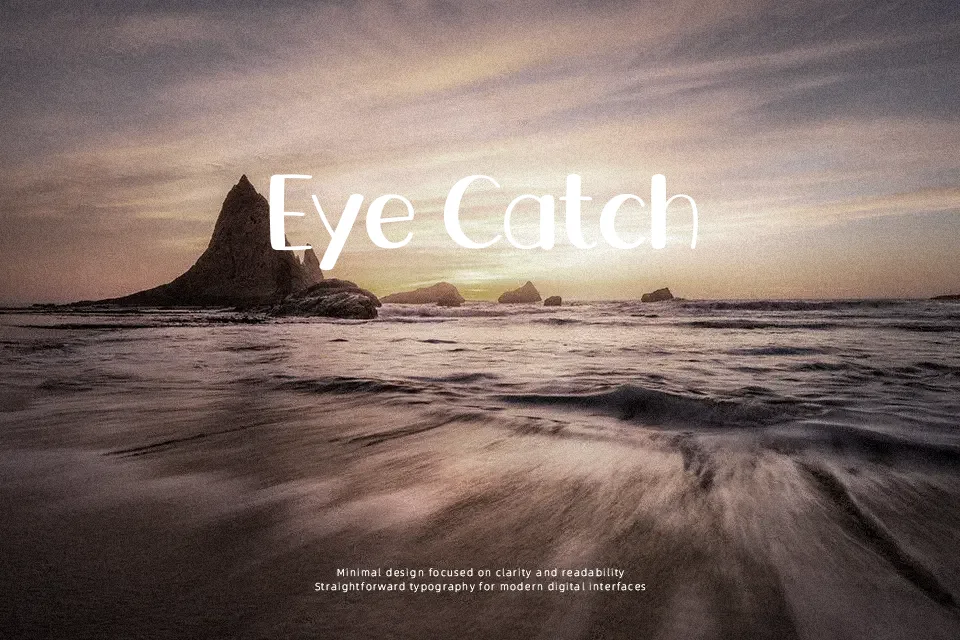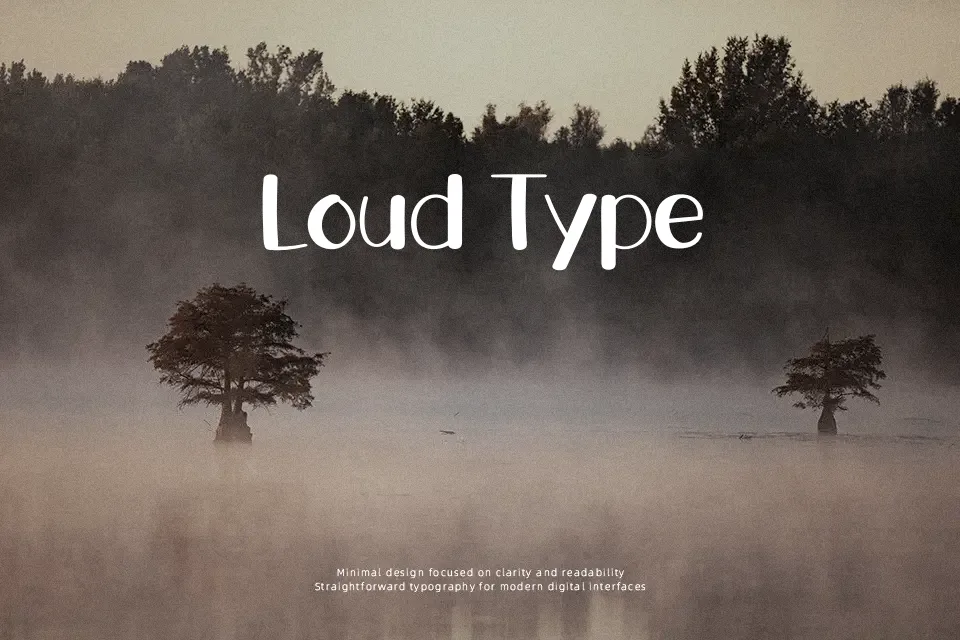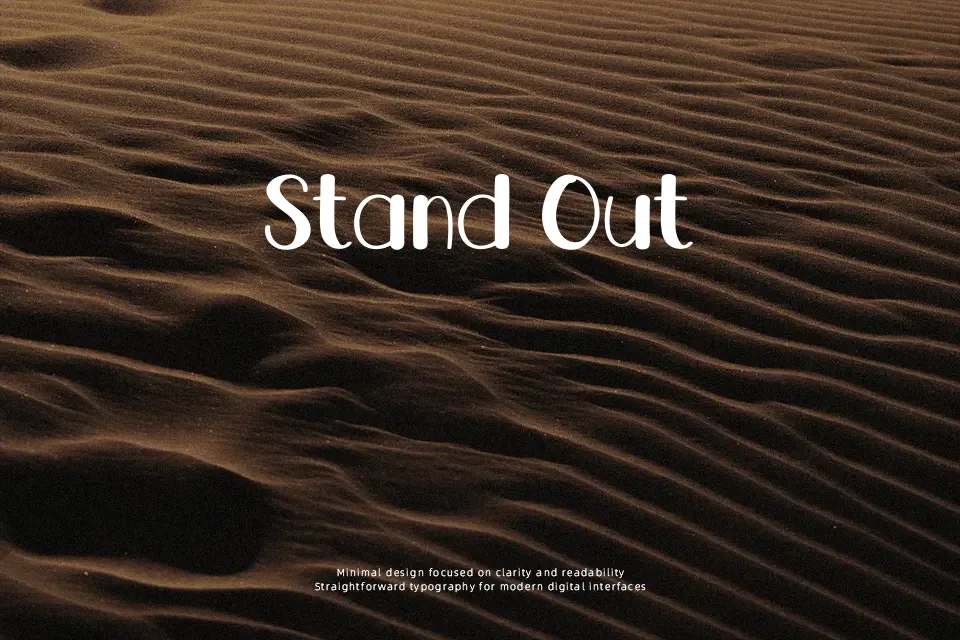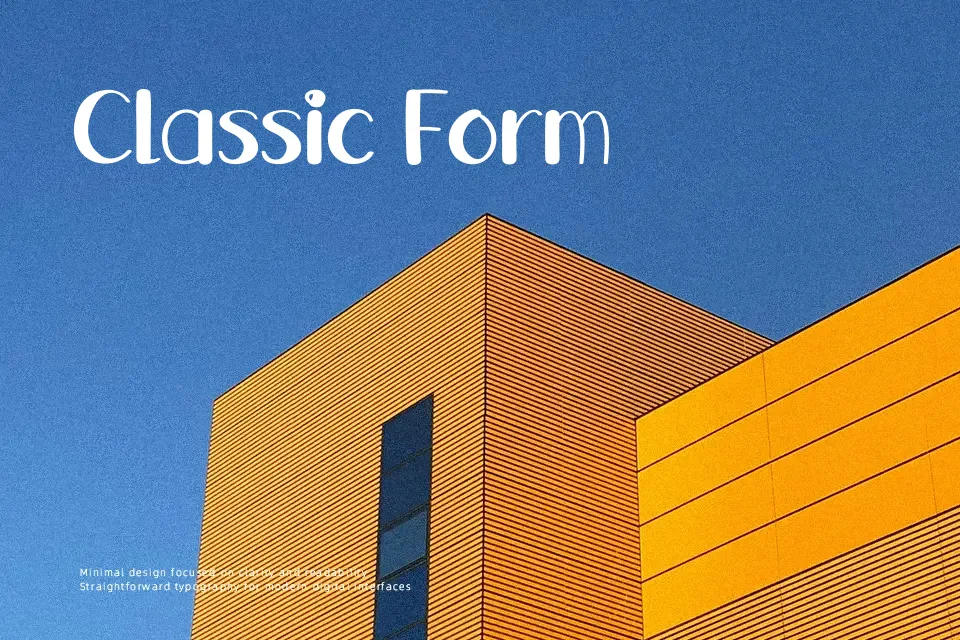
New Year Font
Designed by Luluk Surotul
New Year is a casual handwritten typeface with uneven strokes, loose curves, and a quirky rhythm that immediately reads as personal and informal. The letters lean and wobble slightly, with rounded contours and irregular joins that give the design a relaxed, sketch-like appearance rather than a polished script. Spacing feels open enough for short lines of text, but the varied stroke weights and inconsistent proportions make it more suitable for display sizes than dense reading. The letterforms hold up well in larger headlines and short phrases, where their imperfections add charm, while longer paragraphs or very small captions will feel visually busy and harder to scan.
festive greeting cards and holiday tags
playful poster headlines and flyers
social media graphics with a casual tone
children’s party invitations or decor text
long-form body text or articles
formal corporate or legal documents
small UI labels or technical interfaces
dense data tables or reports
Perfect for headline, holiday, and logo, with a creative and display style.